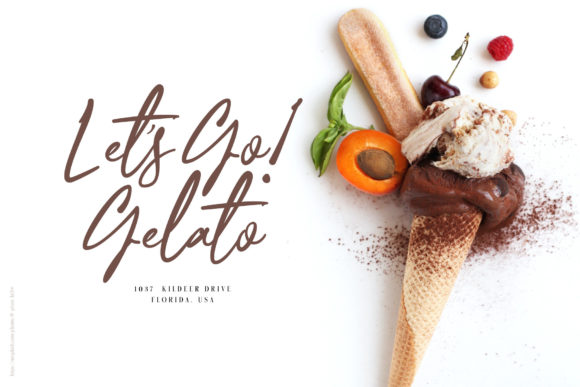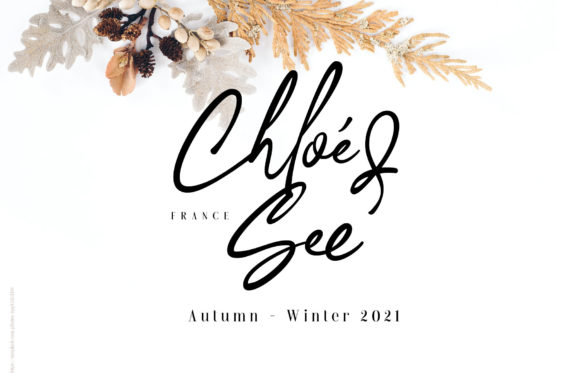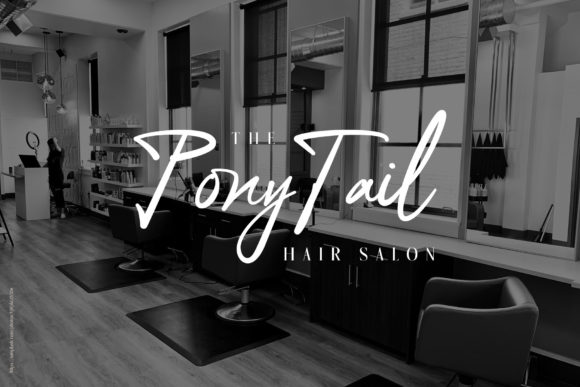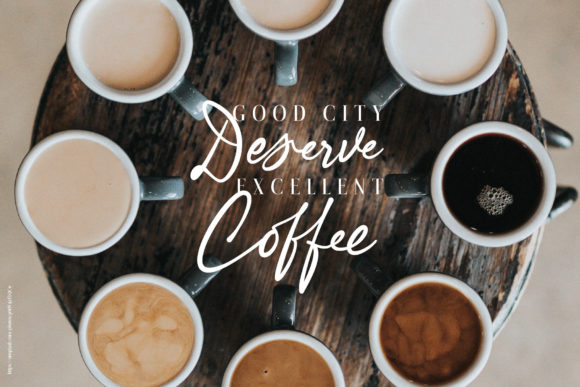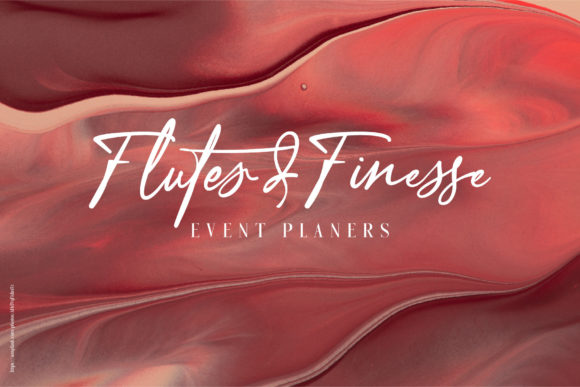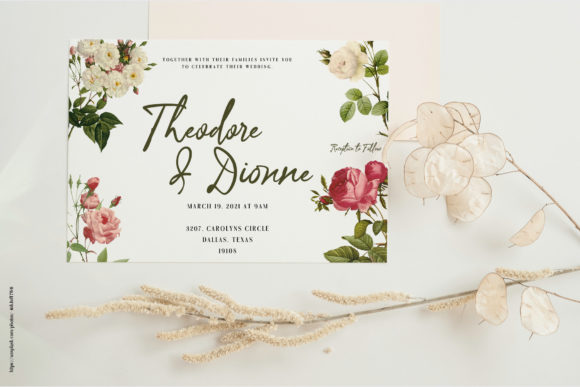
Introduction to Ottenthic Font
Ottenthic is a fashionable and relaxed duo font (script and serif).
It has a classy, elegant and modern look that can be used for logos, branding, invitations, stationery, wedding designs, social media posts, and much more .